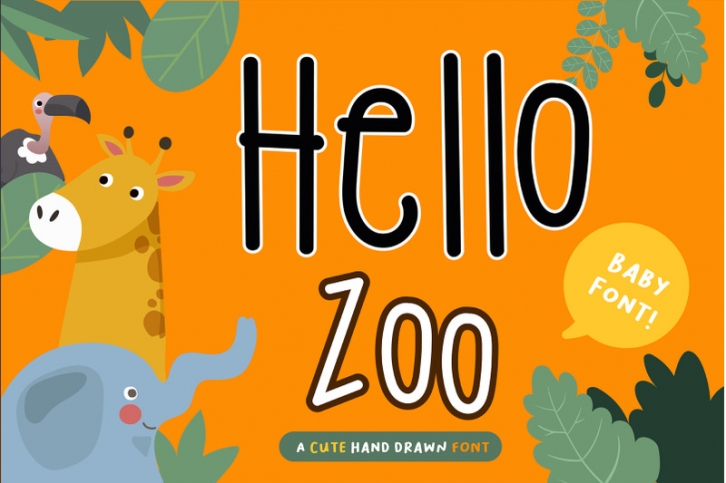
Hello Zoo Handwritten- cute kid font Kawaii style! Download
Hello Zoo Baby Font- Handwritten Kawaii style.
English language only Are you looking for cute Handwritten font for your project? Then you have come the right land!!
This Font is perfect for kid greeting card, Print t shirt, fashion artworks or just play around. Festival like Valentine's Day, Kid's Party, wedding!!